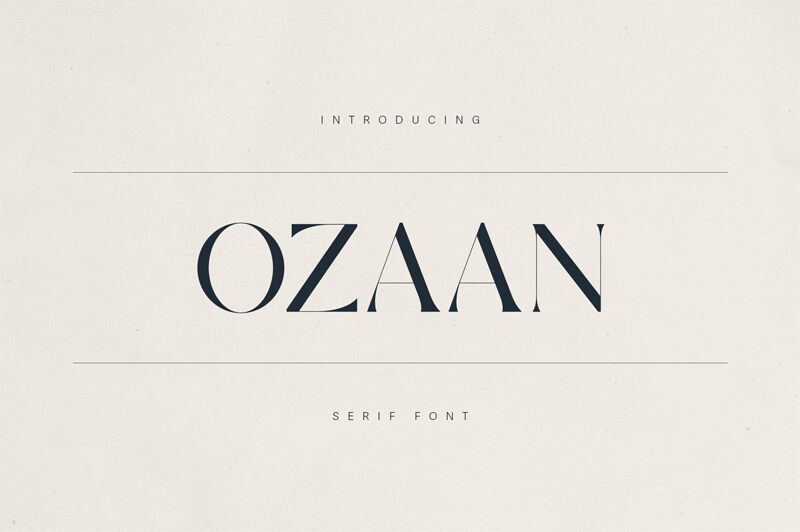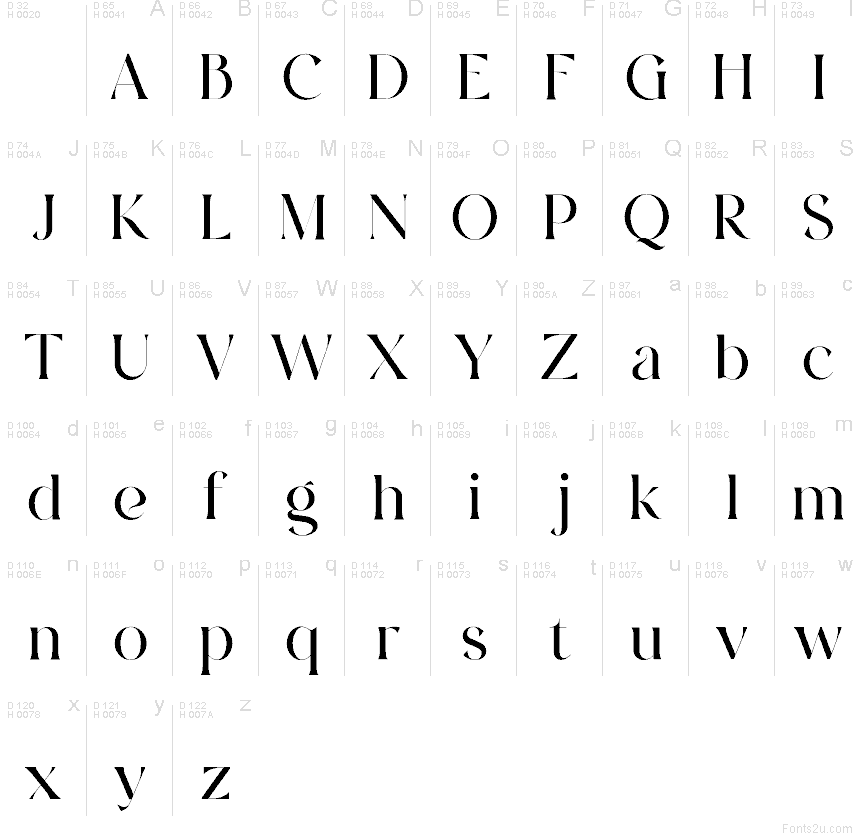
Ozaan font by VPcreativeshop is a free serif typeface with a striking rhythm of velvety curves and razor-sharp cuts. The letters feel sculpted rather than drawn, with broad inky bowls that taper into fine, blade-like joints, giving every word a sense of drama and motion. It has a refined, editorial attitude that makes even short headlines feel like a logo, while the tight, controlled spacing keeps layouts clean and modern rather than fussy.
Using Ozaan, you get a serif that instantly elevates brand identities, magazine covers, luxury packaging, fashion promos, and hero sections on websites. This free font shines on large titles and logos where its elegant contrasts can breathe, then pairs smoothly with a simple geometric sans for smaller text. Use it generously at larger sizes, let the white space frame those sculptural curves, and your design will carry a bold, couture edge.